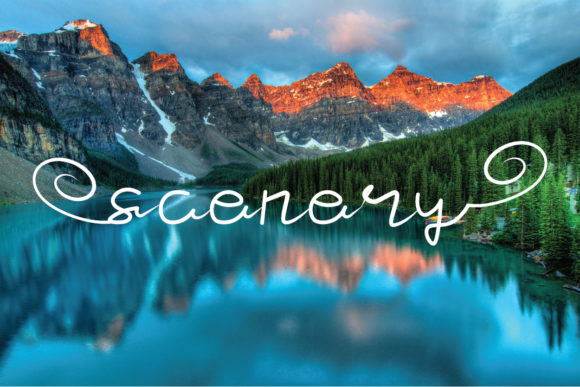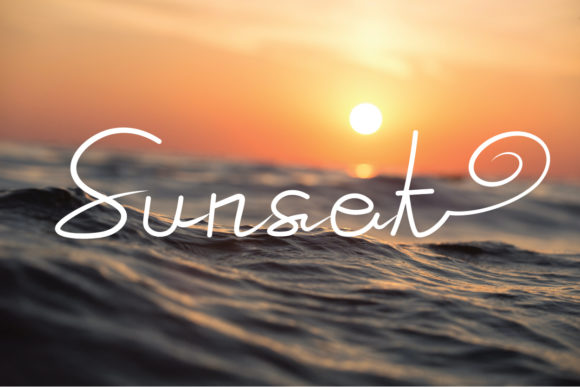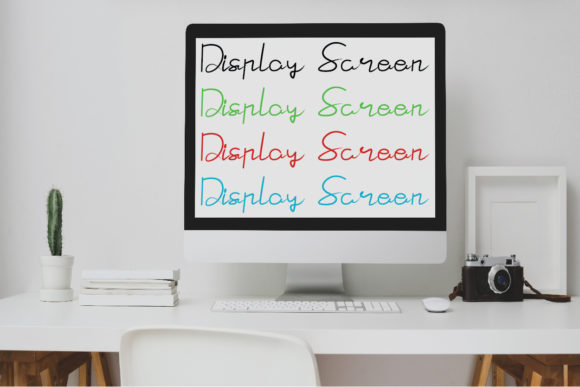
Introduction to Read Font
Do you remember the moment when you first saw the beautiful handwritten invitation at a friend’s wedding? The delicate script and the romantic feel instantly captured your heart. For designers, moments like these are what make our job so special – the chance to create something truly unique and meaningful for our clients. Whether it’s a wedding invitation, a birthday card, or a special announcement, a beautiful font can make all the difference.
That’s where the Read Font comes in – a sweet and delicate handwritten font that’s perfect for adding a touch of romance and personality to your designs. With its dainty and joyful feel, this font is an ideal design resource for anyone looking to create a high-quality, visually appealing project.
As a valuable addition to your design toolkit, the Read Font offers a transparent background, making it easy to customize and pair with any color or background image. And the best part? It’s available for free download, making it a must-have for any designer looking to elevate their creative projects.
Key Features of Read Font
- High-quality, professional font suitable for various creative projects, including graphic design, publishing, and digital art.
- Features a transparent background, allowing for easy layering and compositing in design applications.
- Designed to be highly legible, even at small sizes, making it perfect for use in a variety of design contexts.
- Resolution-independent, ensuring that the font remains crisp and clear at high resolutions (up to 300 DPI).
- Includes a comprehensive character set, supporting multiple languages and special characters for added versatility.
Honest Review: Read Font
I recently stumbled upon the Read Font and I must say, it’s been a game-changer for my creative projects. The first thing that caught my attention was the high-quality design and the transparent background, which makes it perfect for use on any background.
What works well for me is the versatility of the Read Font. I’ve used it for both print and digital designs, and it looks amazing in both formats. The font is easy to read, even at small sizes, making it perfect for body text or headings. I’ve also found it to be a great resource for creating a clean and minimalist aesthetic in my designs.
- ✨ High-quality design
- ✨ Transparent background
- ✨ Versatile for print and digital designs
- ✨ Easy to read, even at small sizes
One limitation I’ve found is that the Read Font may not be suitable for all design styles. For example, if you’re going for a bold or dramatic look, this font may not be the best choice. Additionally, the font is only available for free download, so if you need to use it for commercial purposes, you may need to explore other options.
Overall, I’m really impressed with the Read Font. It’s a great addition to my design resource library and I’ve already used it in several projects. If you’re looking for a high-quality, easy-to-read font, I would definitely recommend checking it out.
Read Font: A Versatile Design Resource
Insert the Read Font into your PowerPoint or Word document and use it to create engaging presentations and documents. Take advantage of the font’s high-quality design to make your content stand out.
The Read Font is ideal for a variety of creative projects, including logos, infographics, and social media graphics. Its transparent background feature makes it perfect for overlaying text on images.
Use the Read Font in conjunction with other high-quality design resources to create visually stunning designs. Experiment with different font sizes and styles to achieve a unique look.
Alternatives to Read Font
Font Squirrel
Font Squirrel is a popular design resource for finding high-quality fonts with transparent backgrounds. It offers a vast library of fonts for both personal and commercial use. When to use: For creative projects requiring unique fonts with transparent backgrounds.
Comparison to Read Font: Font Squirrel offers a more extensive library of fonts with transparent backgrounds, making it a better choice for projects requiring this feature.
Can I customize the Read Font to fit my specific design needs?
While Read Font is a high-quality design resource, it is not a customizable font in the classical sense. However, you can use font editors like FontForge or Glyphs to modify the font’s characteristics, such as its size, color, or transparency. Keep in mind that modifying the font may affect its compatibility with certain software or operating systems.